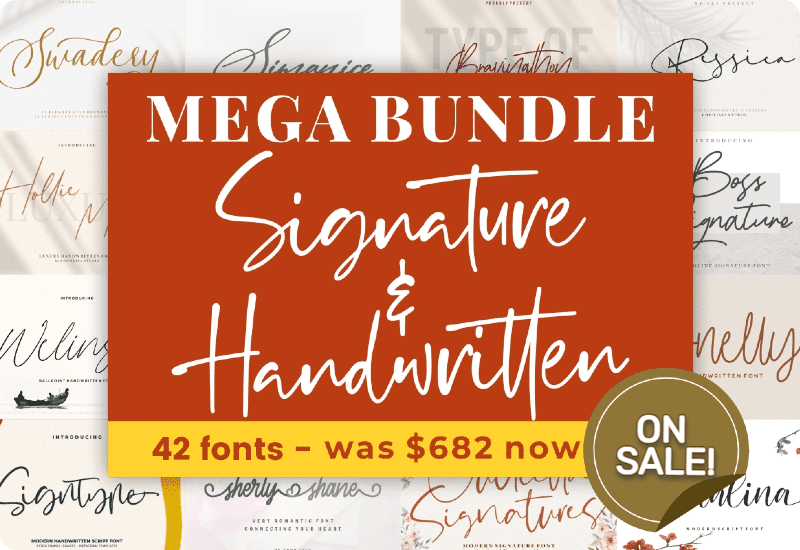
This bundle consists of 42 handwritten fonts by goodjavastudio that can be used for various projects such as logos, branding, wedding invitations, pantry labels, business cards, greeting cards, posters, websites, and much more.
What is the “Mega Script & Handwritten Fonts Bundle”?
The “Mega Script & Handwritten Fonts Bundle” is a collection of 42 handwritten fonts that are perfect for designers who want to add a personal touch to their projects. These fonts are unique, beautiful, and have a natural look and feel to them, making them perfect for branding, invitations, and other creative projects.
42 Premium Fonts included in this bundle:
• Betterlove Script & Handwritten Font
• Boss Script & Handwritten Font
• Sweet Grace Script & Handwritten Font
• Hi Virginia Script & Handwritten Font
• Swadery Script & Handwritten Font
• Marchellia Script & Handwritten Font
• My Homely Script & Handwritten Font
• Newtoon Script & Handwritten Font
• Sherly Shane Script & Handwritten Font
• Venoisse Script & Handwritten Font
• Hearthline Script & Handwritten Font
• Angellina Script & Handwritten Font
• My Lovely Script & Handwritten Font
• Meastry Script & Handwritten Font
• Simanice Script & Handwritten Font
• Signtype Script & Handwritten Font
• Dreamelly Script & Handwritten Font
• Hampshire Script & Handwritten Font
• Gloryouss Skript-Schriftarten Schriftart
• Jennifer Skript-Schriftarten Schriftart
• Olivia Skript-Schriftarten Schriftart
• Intensity Script & Handwritten Font
• Adelyne Script & Handwritten Font
• Sellaria Script & Handwritten Font
• Bestvibes Skript-Schriftarten Schriftart
• Conelly Script & Handwritten Font
• Welinside Script & Handwritten Font
• Cattalina Script Fonts
• Dutchly Script & Handwritten Font
• Salsters Script & Handwritten Font
• Hollie Mally Script & Handwritten Font
• Docherty Fontes Script Fonte
• My Autumn Script & Handwritten Font
• Yullietta Fontes Script Fonte
• Catchme Fontes Script Fonte
• Sharpless Fontes Script Fonte
• Ressica Script & Handwritten Font
• Vallencia Script & Handwritten Font
• Emilliya Script & Handwritten Font
• Phillips Script & Handwritten Font
• Winalissa Script & Handwritten Font
• Hugesnow Fontes Script Fonte
What Makes These Fonts Special?
One of the best things about the “Mega Script & Handwritten Fonts Bundle” is that most of the fonts are PUA encoded. This means that you can access all of the special characters with ease.
The fonts are also handcrafted, giving them a unique and natural look that is perfect for personal branding, logos, and other creative projects.
How to Use These Fonts
The “Mega Script & Handwritten Fonts Bundle” can be used for a wide range of projects. Some of the most popular uses include:
• Logos: Handwritten fonts can add a personal touch to your logo design, making it stand out from the competition.
• Branding: Use these fonts to create a consistent brand image across all of your marketing materials.
• Wedding Invitations: Handwritten fonts are perfect for creating a romantic and personal feel to your wedding invitations.
• Pantry Labels: Use handwritten fonts to create custom labels for your pantry, adding a personal touch to your kitchen organization.
• Business Cards: Impress potential clients with unique and memorable business cards that feature handwritten fonts.
• Greeting Cards: Add a personal touch to your greeting cards with handwritten fonts that convey warmth and personality.
• Posters: Create eye-catching posters with fonts that have a unique and natural look.
• Websites: Use these fonts to create a personal and authentic feel to your website design.
If you are a designer or a creative, then the “Mega Script & Handwritten Fonts Bundle” is an amazing offer that you should not miss. With 42 beautiful and unique handwritten fonts, this bundle is perfect for any project that requires a personal touch.